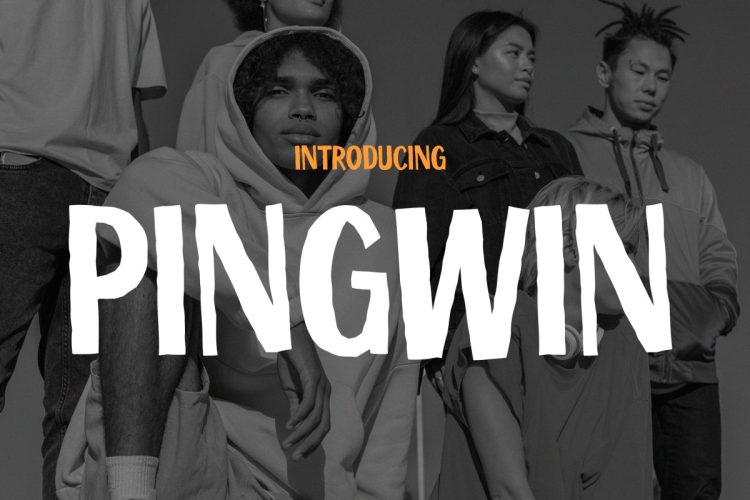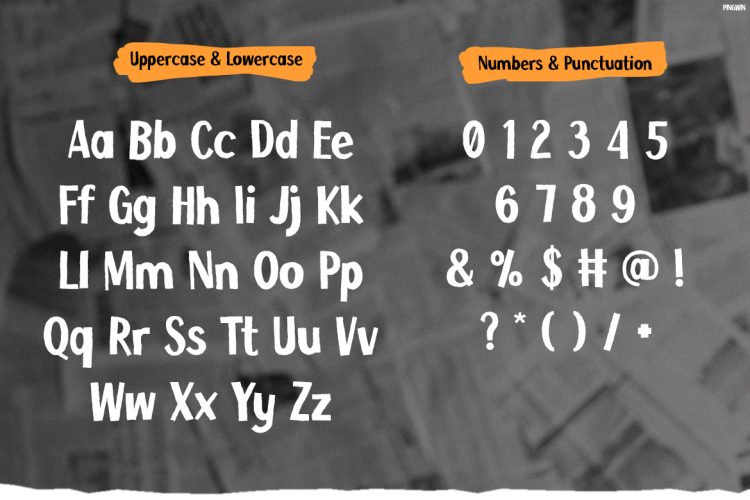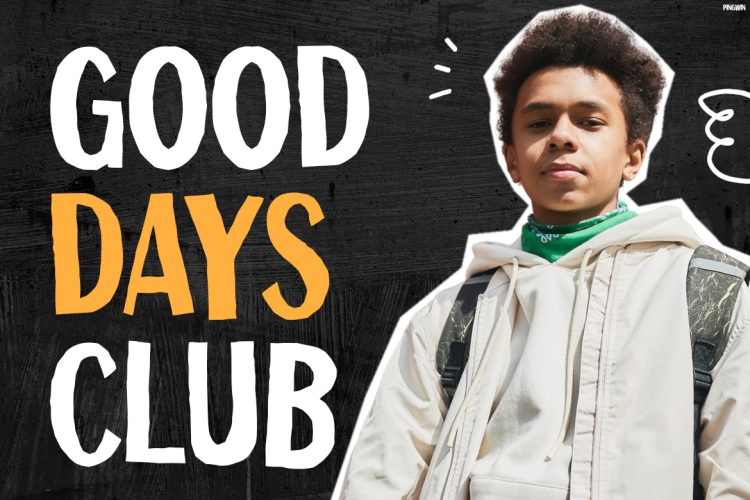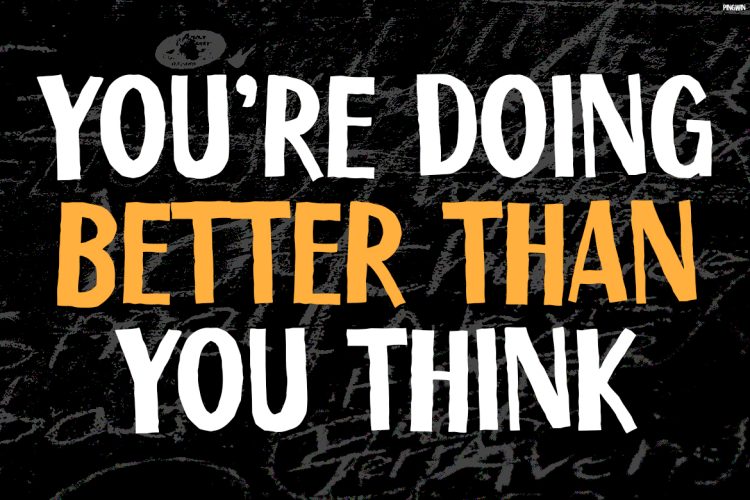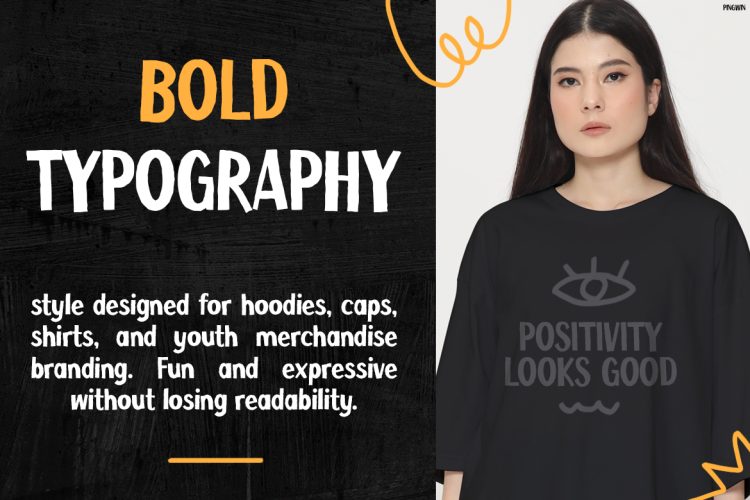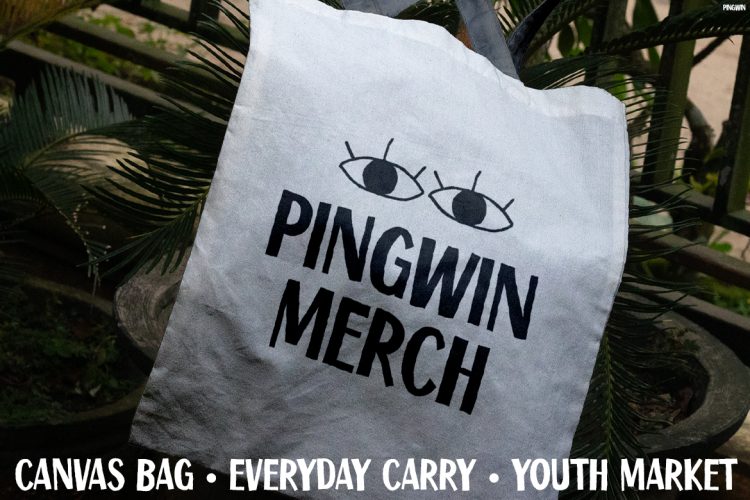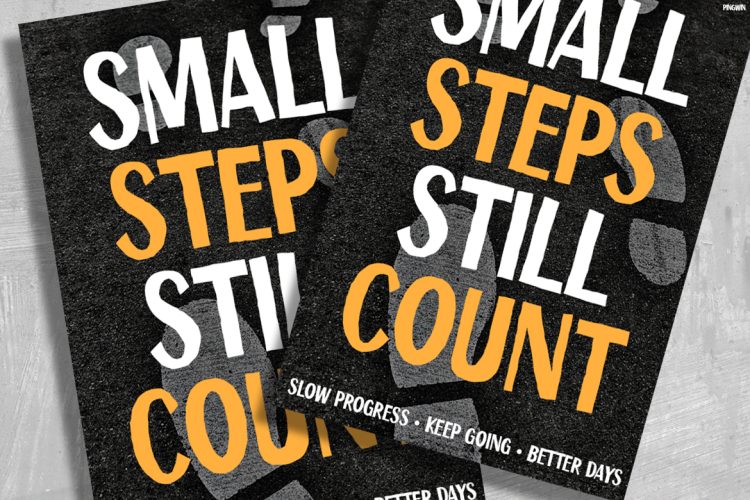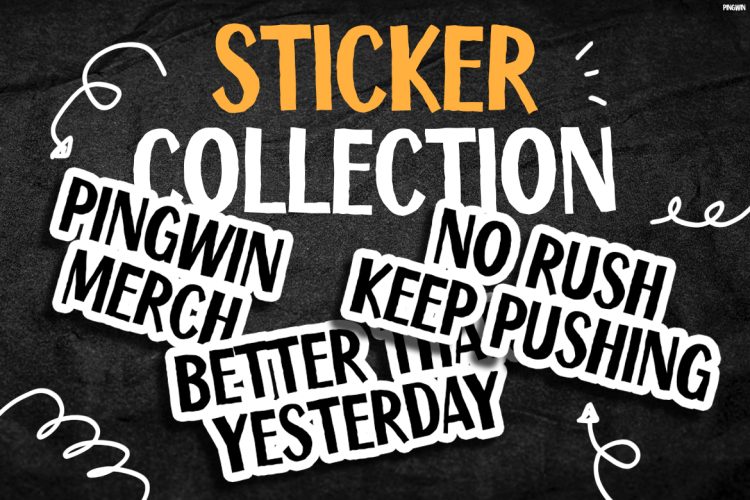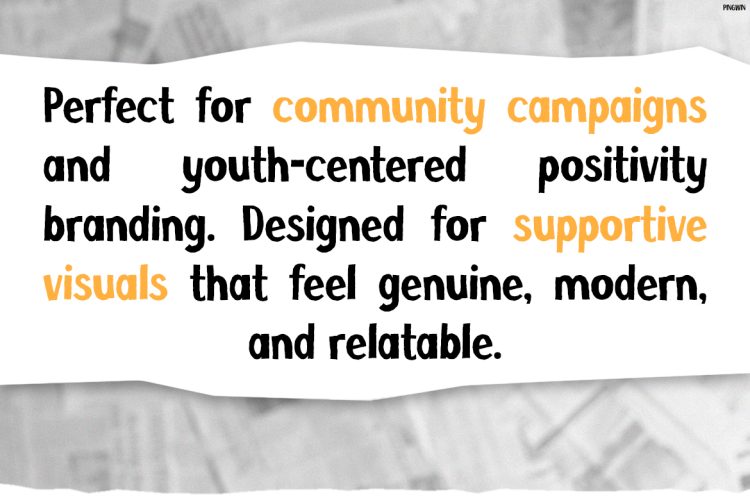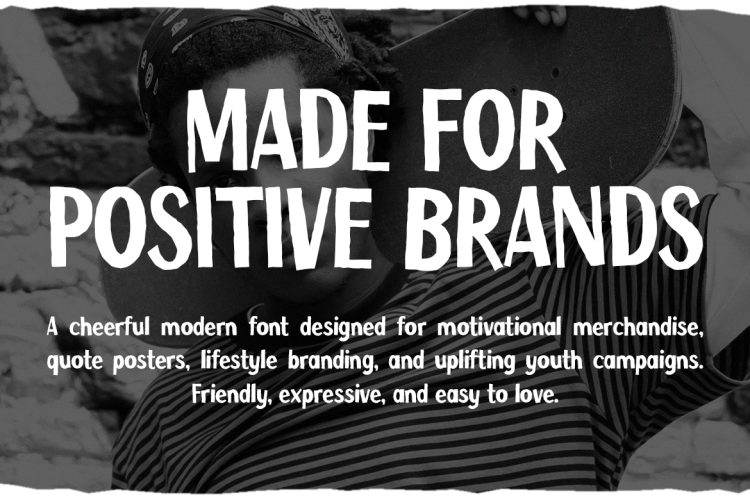
Kids Font Pingwin โ Bold Positive Font with Street-Style Energy
Kids Font Pingwin is a bold and expressive display font designed to bring confidence, positivity, and youthful energy into every design. With its chunky hand-drawn letterforms, playful brush-inspired style, and modern streetwear aesthetic, this font instantly creates a strong and attention-grabbing visual impact. Moreover, the rough handcrafted details make every headline feel authentic, energetic, and full of personality. In addition, the bold structure keeps your typography highly readable, so your message stays clear across posters, merchandise, social media, and branding materials. Because of its modern motivational vibe, Kids Font Pingwin works perfectly for youth campaigns, positive branding, community projects, and creative promotional content. Furthermore, the playful character shapes help every design feel more engaging and memorable. At the same time, the urban-inspired style adds a trendy and contemporary edge that audiences instantly connect with.
Why Kids Font Pingwin Stands Out
Pingwin combines bold handwritten typography with uplifting visual energy. As a result, every word feels powerful, friendly, and full of character. Not only does the font create a strong visual presence, but it also enhances the emotional impact of your message with its expressive and approachable style. Additionally, the chunky letterforms make headlines stand out instantly. Meanwhile, the playful imperfections keep your designs looking natural and authentic. Whether you are creating motivational posters, youth merchandise, or social media campaigns, this font helps every project feel more inspiring and visually dynamic. Likewise, the modern street-style appearance makes your branding feel fresh, relatable, and current.
- Youth branding projects
- Motivational posters
- Community campaigns
- Social media graphics
- Merchandise and apparel
- Sticker designs
- Streetwear branding
- School campaigns
- Creative advertising
- Positive message content
Make Every Message Hit Harder